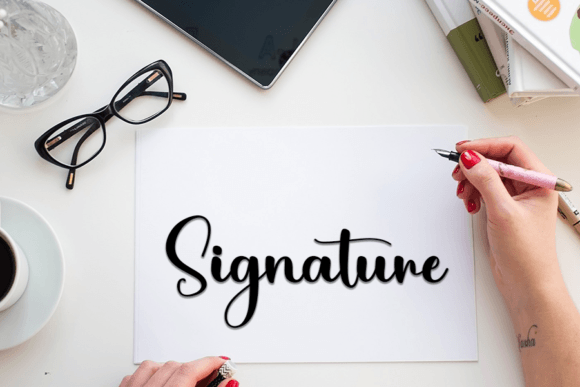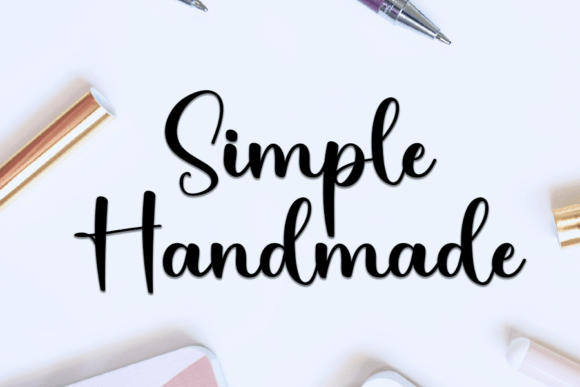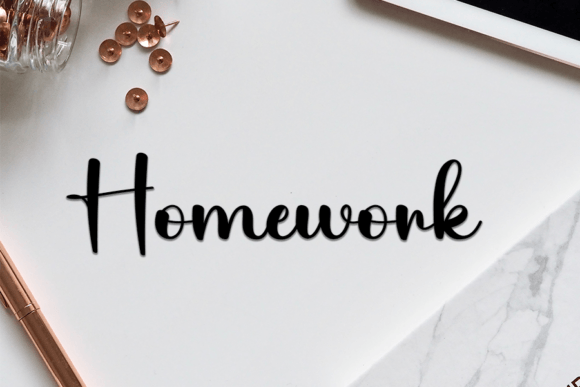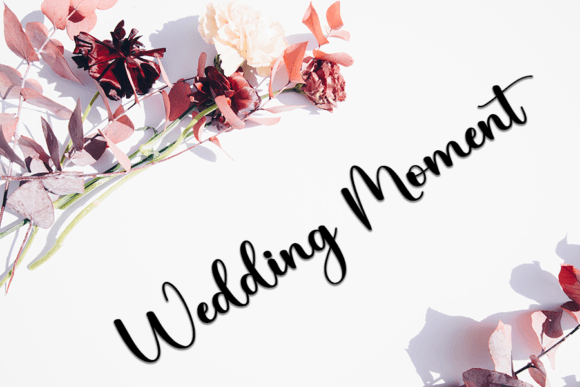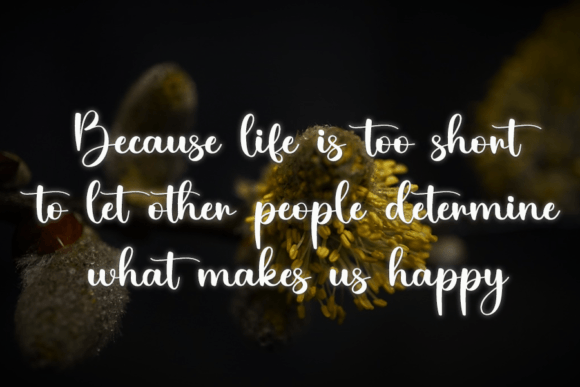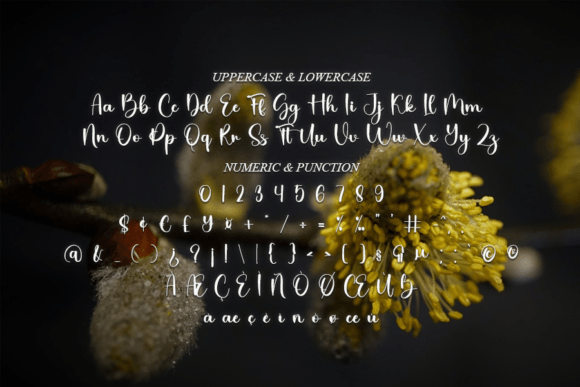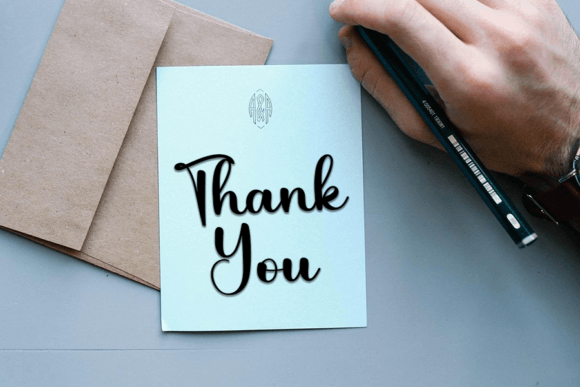
Homestay Font
About Homestay Font
Homestay Font is a graceful and delicate handwritten typeface designed to add a personalized touch to your creative work. Whether you’re crafting heartfelt invitations or labeling artisanal food products, this font brings an effortlessly charming and stylish feel to any project.
Its carefully crafted strokes create a casual yet refined aesthetic, which makes Homestay Font a go-to option for designers seeking something modern yet familiar. The natural flow of the characters mimics authentic handwriting, giving your text a soft, welcoming tone.
Where to Use Homestay Font
This handwritten font is versatile enough for a variety of creative applications. It shines especially well in:
• Wedding invitations and personal letters
• Product packaging, especially for food and beverages
• Stylish titles or headlines in branding projects
• Social media graphics and promotional materials
• Custom greeting cards and thank-you notes
Because of its natural style and clean appearance, HomestayFont remains readable across both digital and print mediums.
Why Choose Homestay Font?
• Unique handwritten look that stands out but remains easy to read
• Smooth and flowing characters that create a relaxed tone
• Balanced structure suitable for both formal and fun designs
• Lightweight and elegant form that pairs well with other fonts
In addition, Homestay’s distinct character design ensures that your message feels personal and warm, especially when used in branding or communication materials.